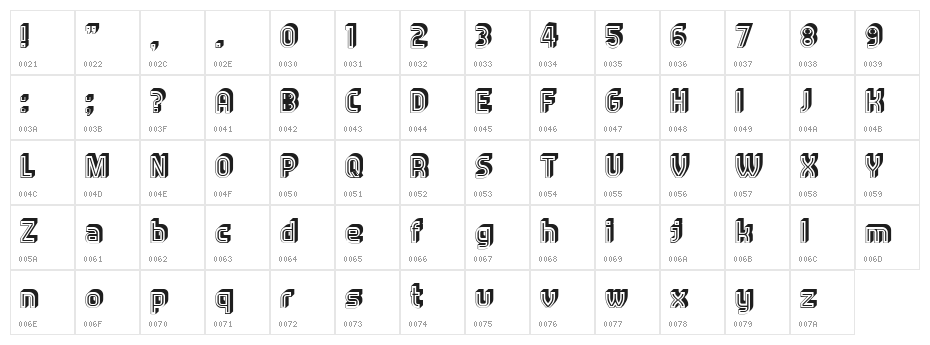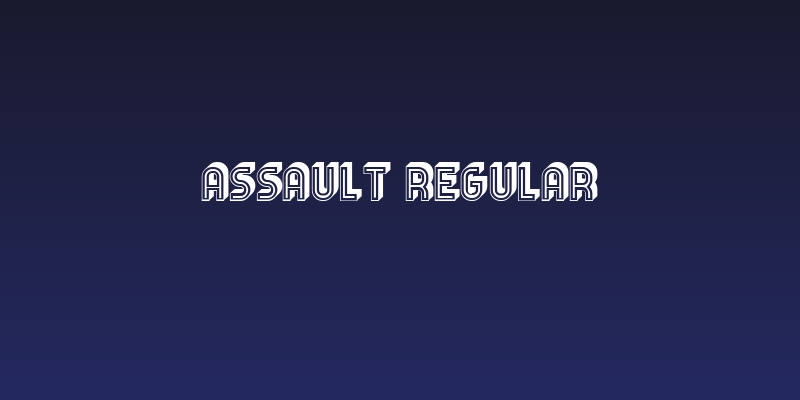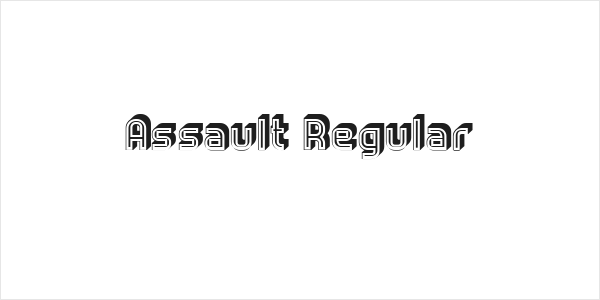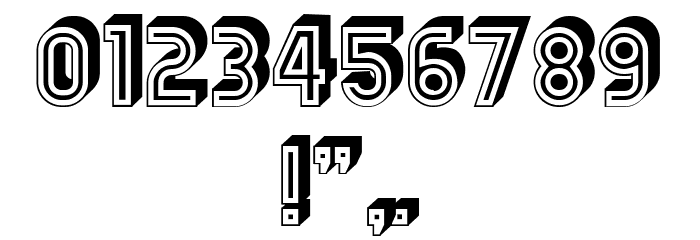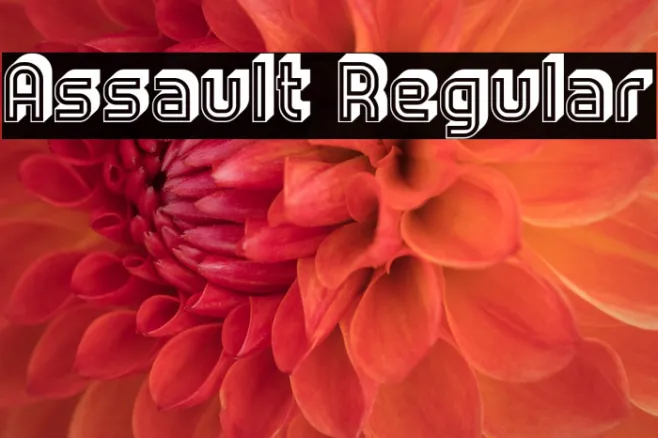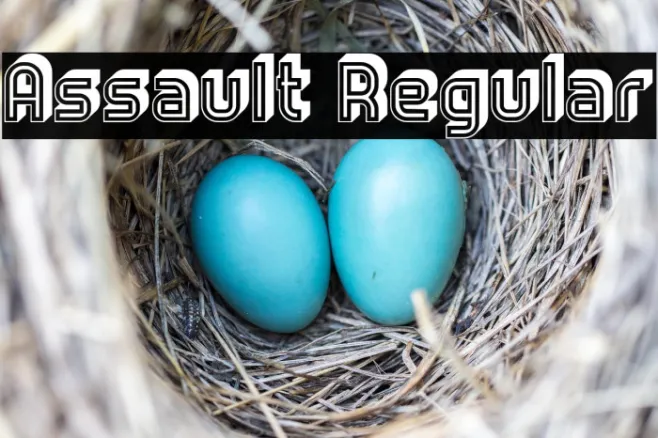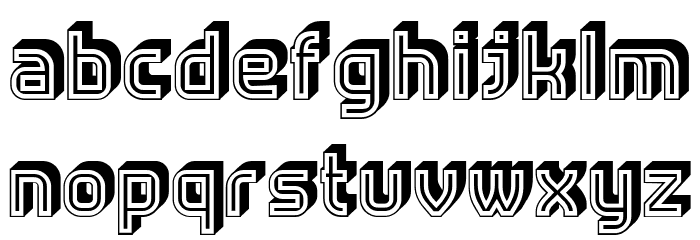
Assault Regular Font
Assault Regular Description
This font features a bold, three-dimensional appearance with a strong, impactful presence. The characters are outlined with a thick black shadow, giving them a striking, layered effect. The uppercase letters are particularly prominent, with sharp angles and a geometric style that conveys a sense of strength and modernity. The lowercase letters maintain the same boldness, ensuring consistency throughout the typeface. Numbers and special characters are designed with the same attention to detail, making them stand out in any design. This font is ideal for projects that require a bold statement and a contemporary look.